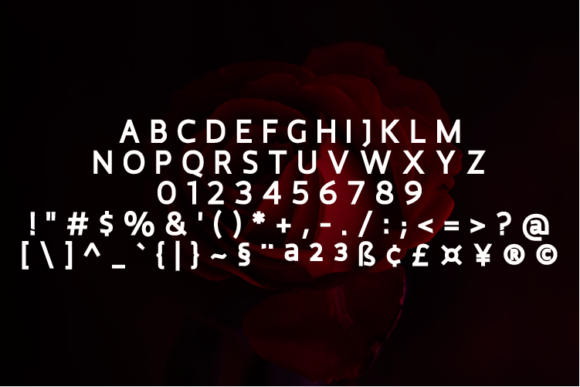
Introduction to Malibo Extra Black Font
Do you remember that moment when you finally found the perfect font for your creative project? The one that elevated your design from good to exceptional? For many designers, that moment is what makes all the hard work worth it. And for those who are looking for that elusive ‘wow’ factor, we’ve got some exciting news – the Malibo Extra Black Font is here to take your designs to the next level.
With its unique blend of traditional and modern elements, the Malibo Extra Black Font is an invaluable design resource for creatives who want to achieve a high-quality, sophisticated look without compromising on style. Its well-balanced Latin details and distinctive contrasts make it an excellent choice for a wide range of applications, from brochures and business cards to websites and digital products. Whether you’re working on a free download or a paid project, this font is sure to impress with its elegant, yet subtle aesthetic.
Key Features of Malibo Extra Black Font
- High-quality design resource ideal for creative projects, offering a sleek and modern look.
- Designed in high resolution (300 DPI), ensuring crisp and clear rendering in various sizes.
- Malibo Extra Black Font is a unique and versatile typeface, perfect for adding a touch of sophistication to any design project.
- Its bold and sleek design makes it an excellent choice for headings, titles, and other prominent design elements.
Honest Review: Malibo Extra Black Font
As a designer, I’m always on the lookout for high-quality design resources to elevate my creative projects. Recently, I stumbled upon the Malibo Extra Black Font, and I’m excited to share my honest review.
- ✨ The font is incredibly versatile and can be used in a variety of design contexts, from logos to brochures.
- ✨ The high-quality design of the font makes it stand out from more generic fonts, adding a touch of sophistication to any project.
- ✨ The transparent background option allows for seamless integration with any design element, giving designers more creative freedom.
- ⚠️ The font may not be suitable for projects that require a more subtle, understated look, as it can be quite bold.
- ⚠️ The font is not available in as many weights as some other popular fonts, which may limit its versatility in certain design contexts.
Overall, I’m impressed with the Malibo Extra Black Font, and I would definitely recommend it to designers looking for a high-quality, versatile font to add some punch to their creative projects.
Malibo Extra Black Font is commonly used in logos, brochures, and other marketing materials. Its high quality and transparent background make it perfect for designs that require a professional touch. You can also use it in social media graphics, presentations, and other creative projects.
To get the most out of Malibo Extra Black Font, use it in combination with other high-quality design elements. Experiment with different font sizes, colors, and arrangements to create a unique and visually appealing design. Additionally, make sure to pair Malibo Extra Black Font with a transparent background to create a clean and modern look.